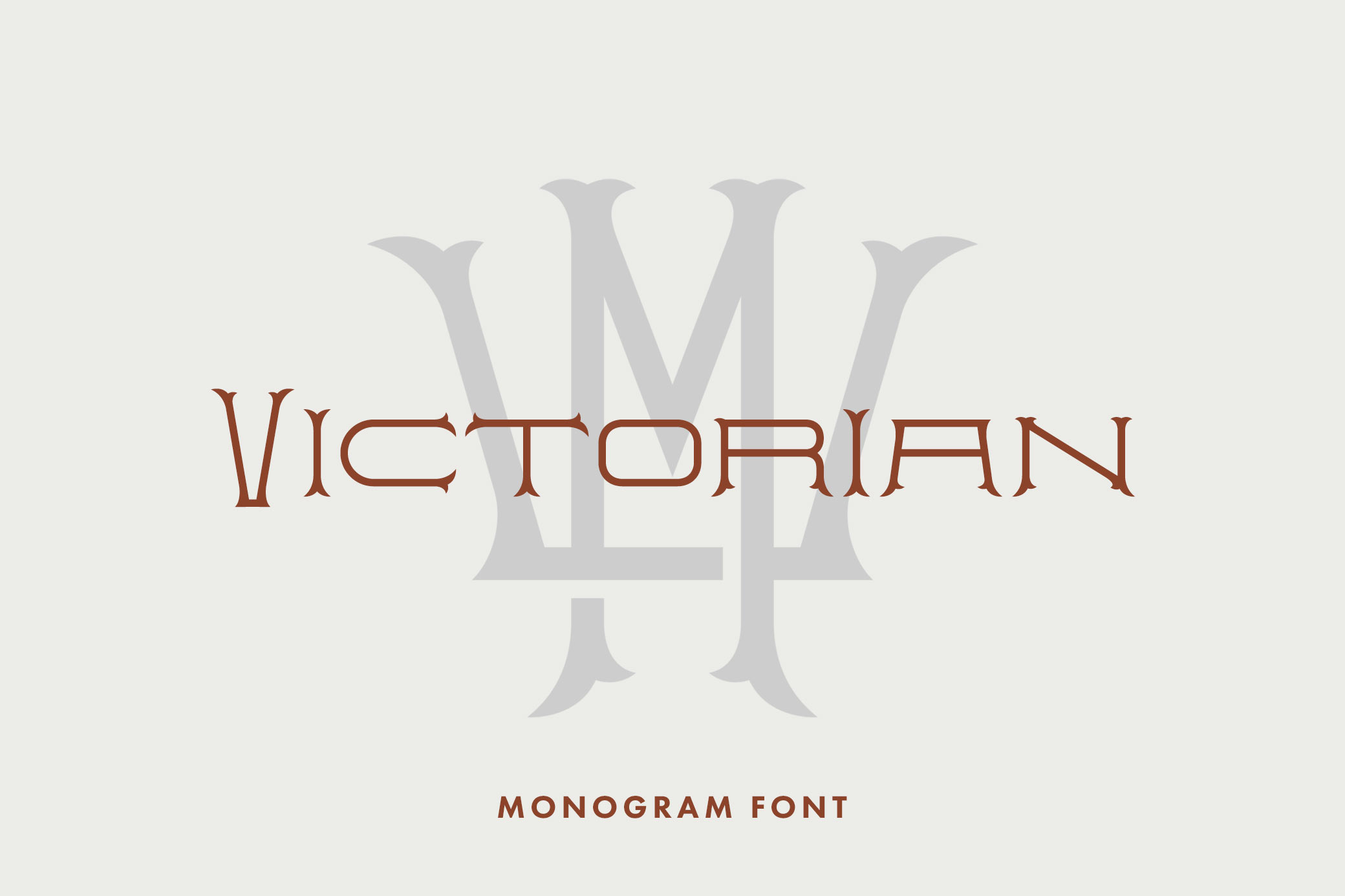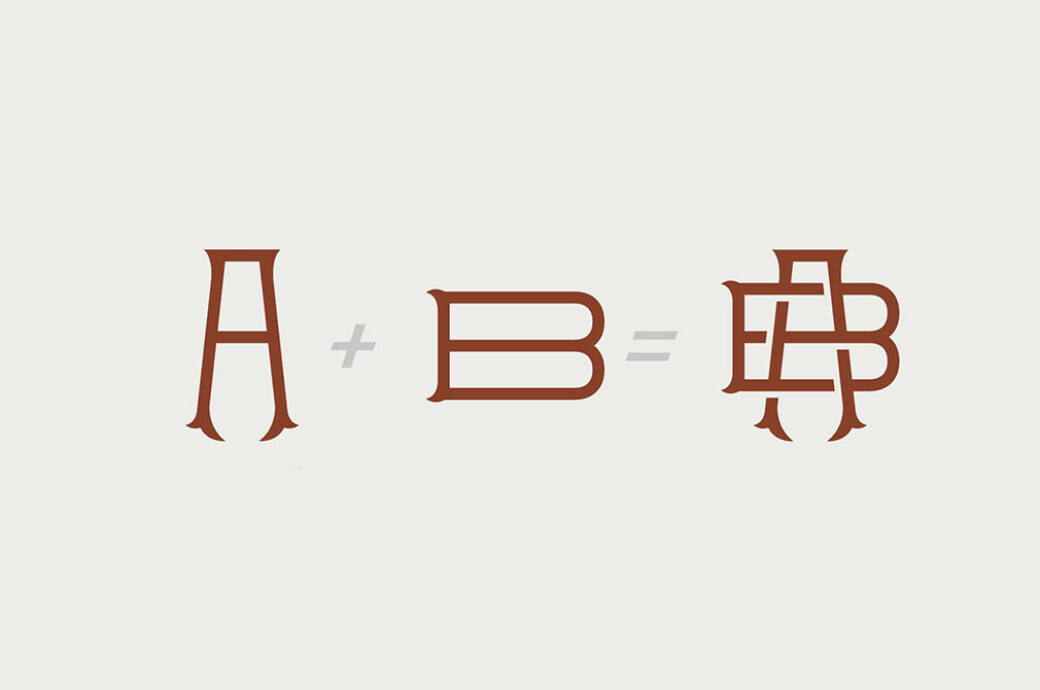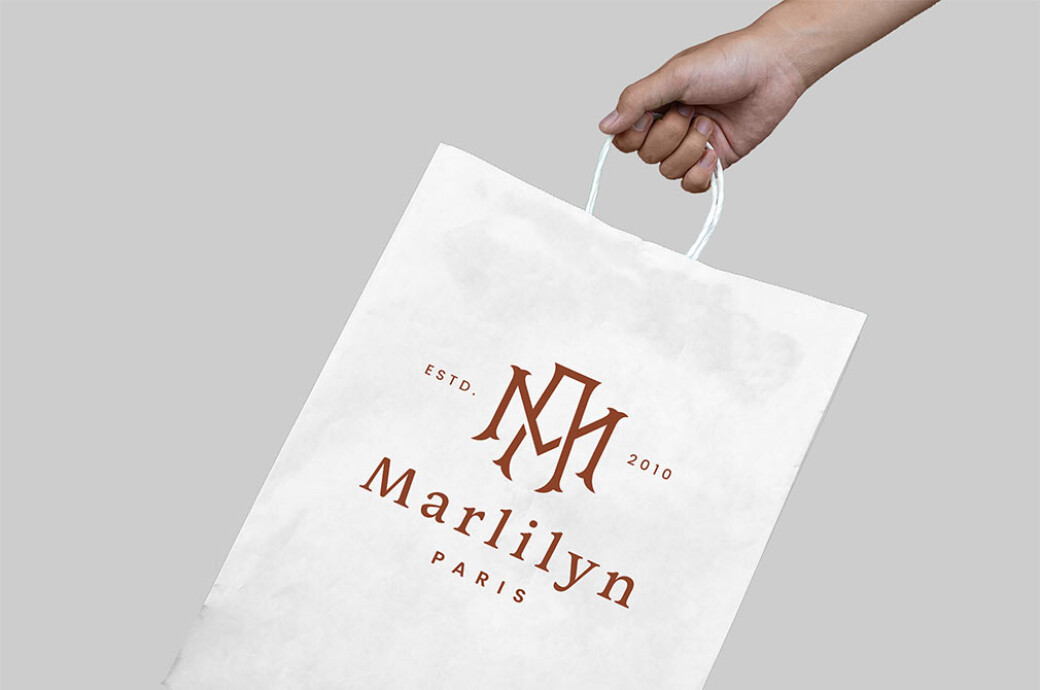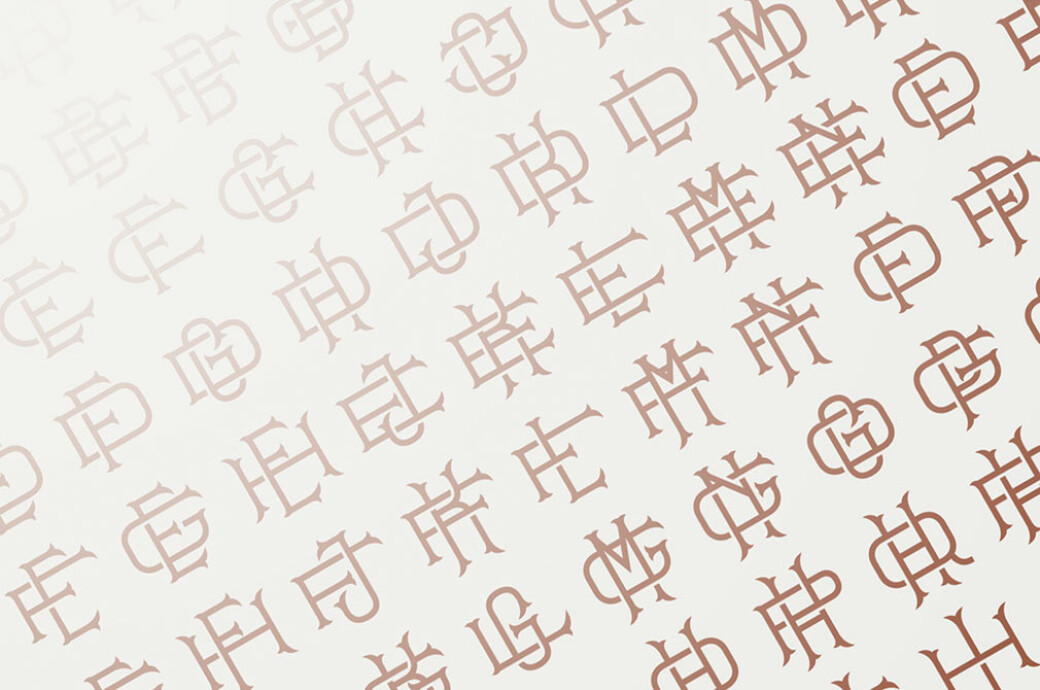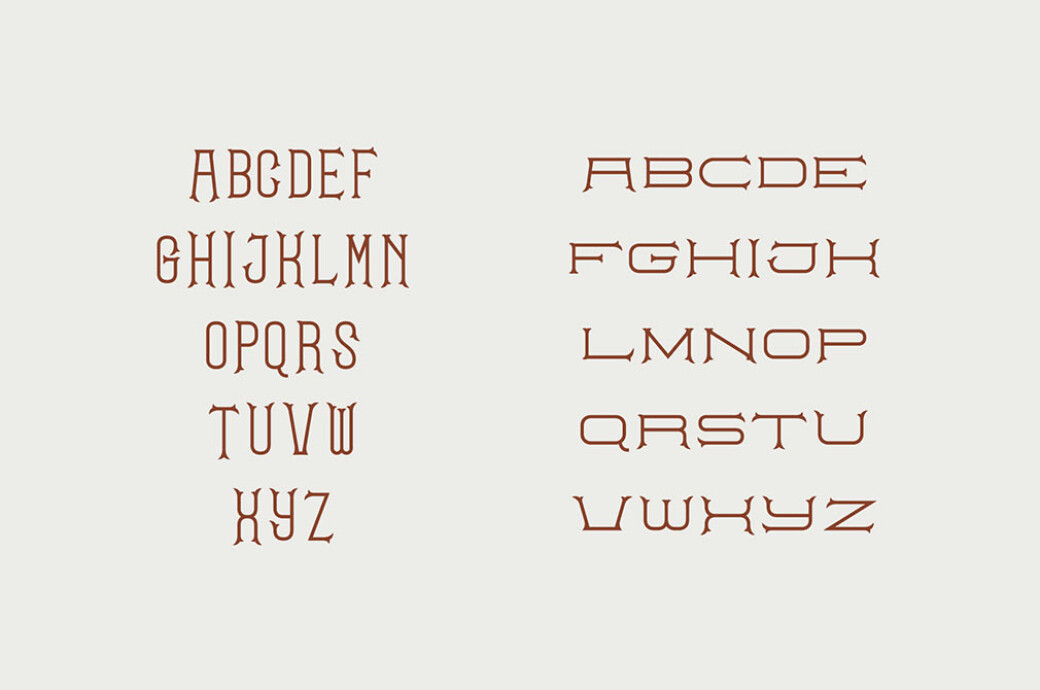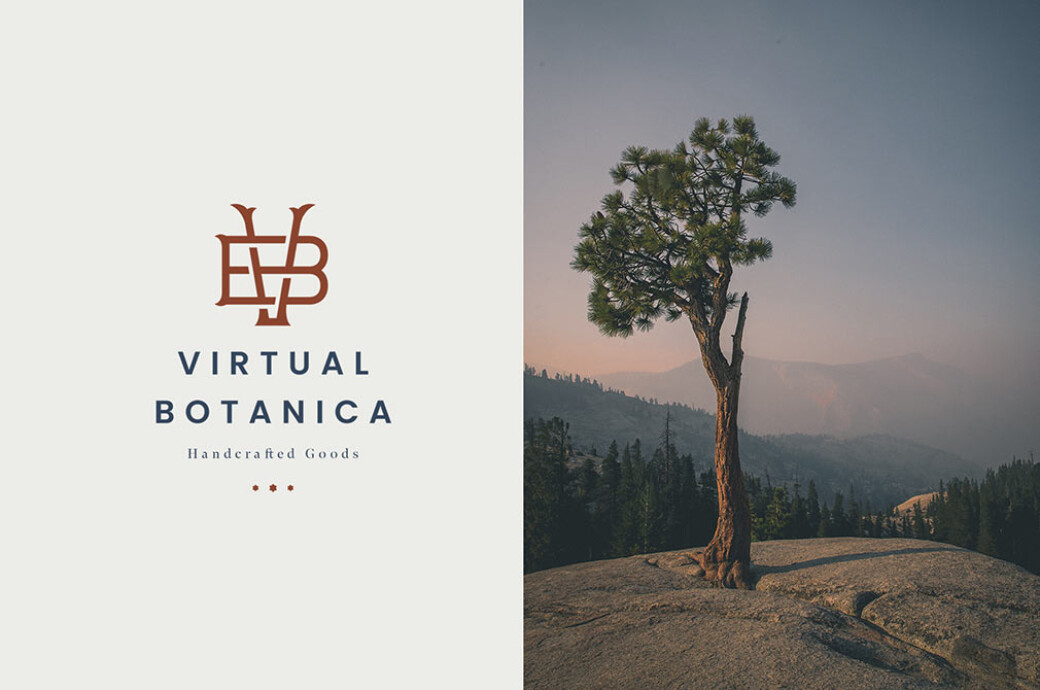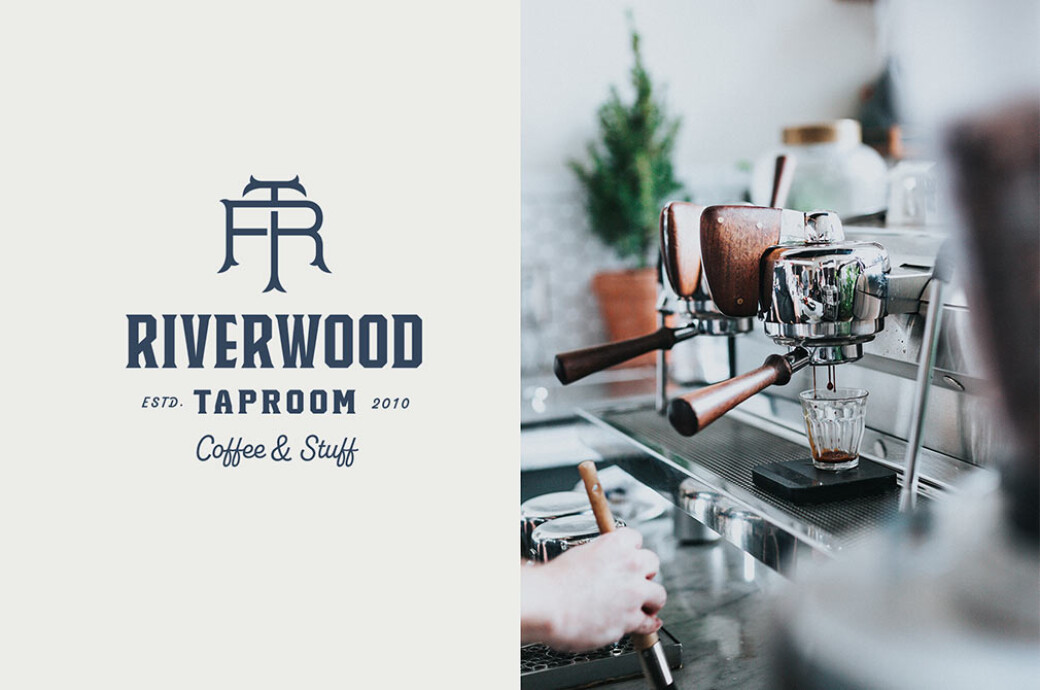
Victorian Monogram Font
For everyone fascinated with monogram fonts, meet an entire font creator! Created in the best traditions of classic Victorian monograms, it allows making custom combinations in no time.Victorian Monogram is a one-weight font with decorative letters and 360+ combinations. Each letter was designed to combine with the others easily. Whatever combination you create, it will look exquisite! The uppercase letters are tall and narrow, while the lower uppercase letters are wider and short-bodied. To create a custom monogram, you should choose an uppercase letter and a lower uppercase letter, place them on top of each other, adjust them to have the same center, and this is it! The Victorian Monogram is perfect for logos, badges, lovely wedding invitations, or anything else starving for a classic vibe!